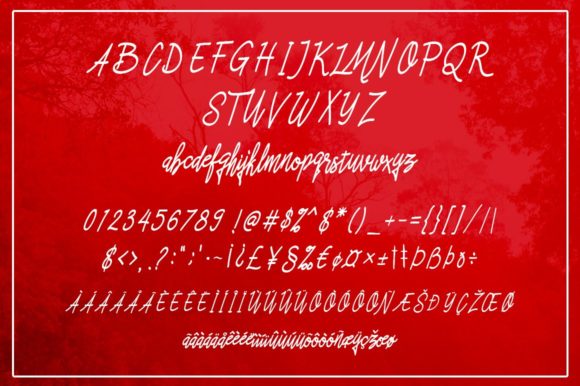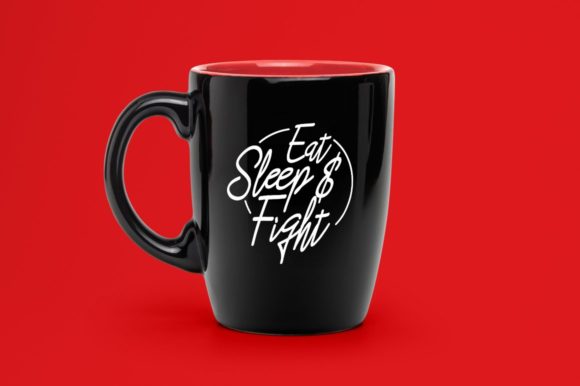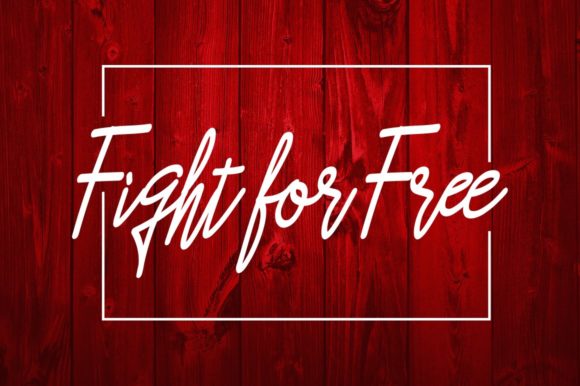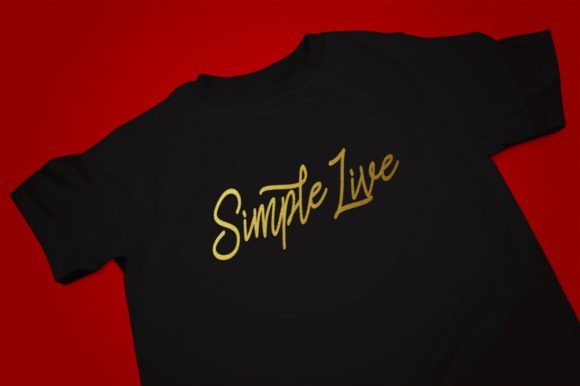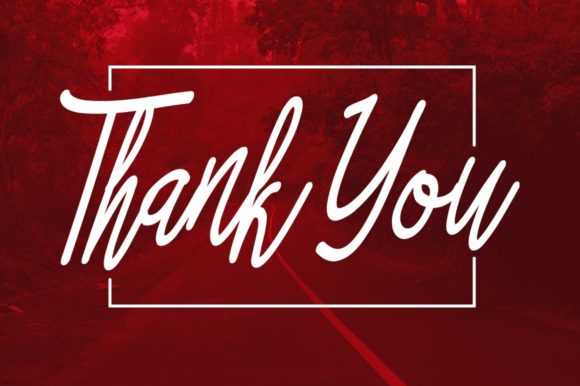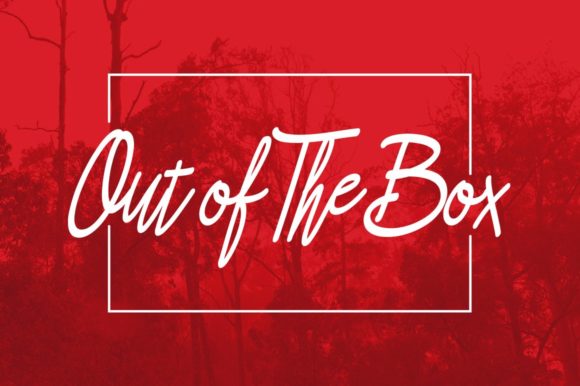
Asfrogas Font
About Asfrogas Font
Asfrogas is a cool and bold script with a contemporary feel. Use it to turn any design project into a true standout!